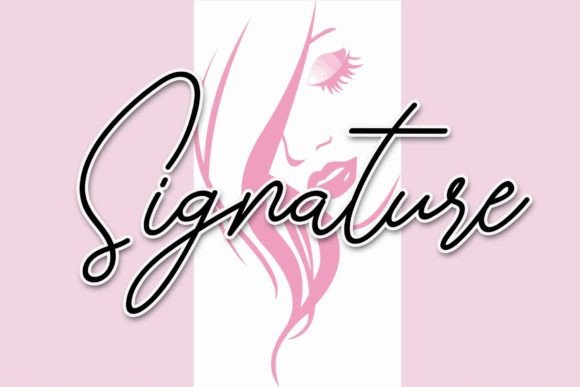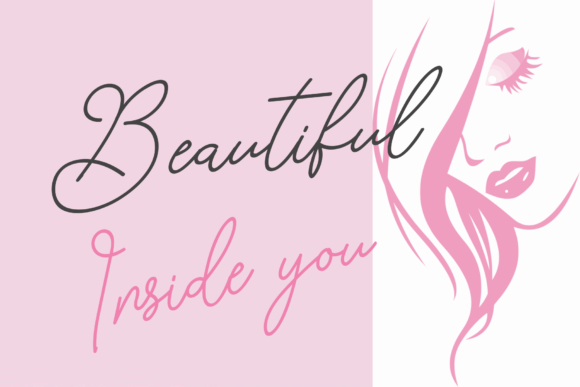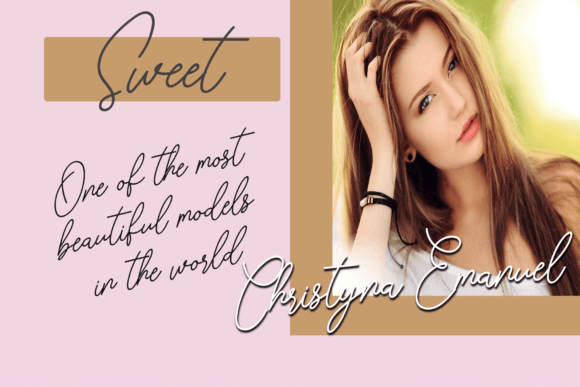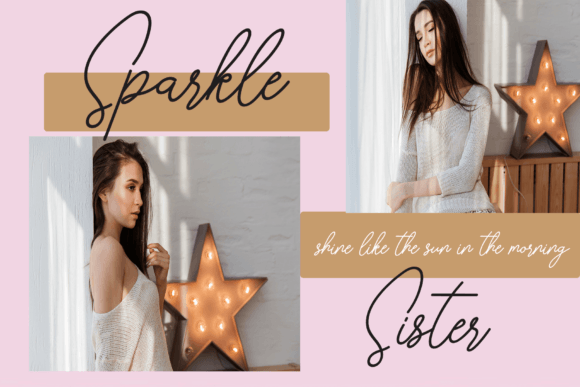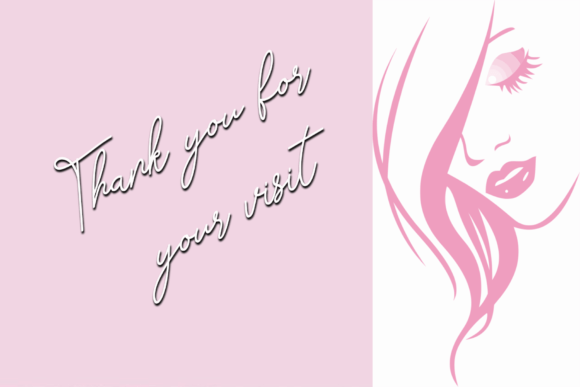
Signature is a magical script font that has been meticulously crafted with a touch of elegance. Whether you’re searching for fonts to enhance your Instagram posts or seeking calligraphy scripts for DIY projects, Signature possesses the enchanting ability to transform any creative idea into a true piece of art.
The magic of Signature lies in its script design, which adds a sense of charm and sophistication to your text. Carefully created with attention to detail, each letter flows seamlessly, contributing to an elegant and captivating aesthetic that elevates your content.
For Instagram, Signature brings a touch of style and refinement to your posts. The script font enhances the visual appeal of your captions, quotes, or promotional content, creating a cohesive and eye-catching look that stands out on social media platforms.
In the realm of calligraphy scripts, Signature stands out as a versatile and artistic choice. Whether you’re working on DIY projects such as invitations, greeting cards, or personalized gifts, the font’s magical and elegant touch adds a unique flair, turning your creations into genuine works of art.
The elegance of Signature extends to its adaptability in various creative endeavors. From branding materials to digital designs, the font adds a refined and magical quality that captures attention and leaves a lasting impression.
In summary, Signature is more than just a font; it’s a magical script that infuses a touch of elegance into your creative projects. Whether you’re enhancing your Instagram presence or adding a sophisticated flair to DIY endeavors, Signature stands out as a captivating and artistic choice. Embrace the magic of Signature to turn your creative ideas into true pieces of art that captivate and enchant your audience.